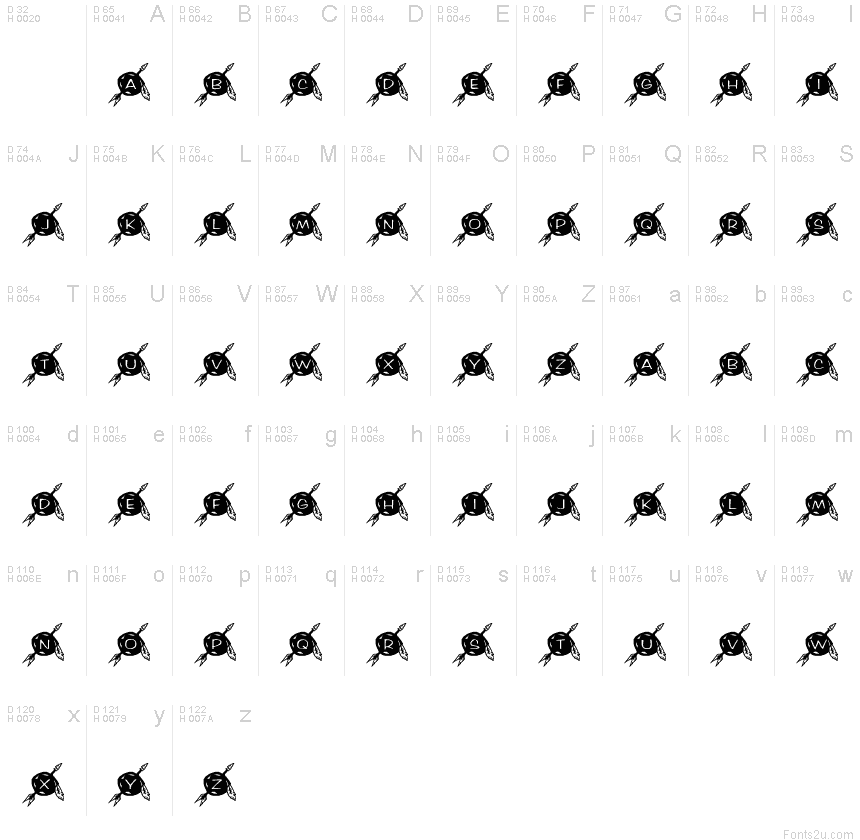
KR Dreamcatcher
KR Dreamcatcher font by Kat Rakos is a free decorative display typeface that turns every letter into a tiny dreamcatcher-and-arrow emblem. Each glyph sits inside an inky black circle with hand-drawn feathers and rough, chalky letterforms, giving your text a crafted, storybook feel. The bold silhouettes read clearly even at smaller sizes, while the consistent circular frames make words line up like a string of charms across the page.
Using KR Dreamcatcher, headlines feel more like illustrations than text, which works beautifully for kids’ party invitations, classroom posters, book covers, craft labels, scrapbooking titles, and themed event signage. This free font shines on large, airy layouts where you can let the icons breathe; pair it with a clean sans serif for body copy to keep everything readable and balanced.